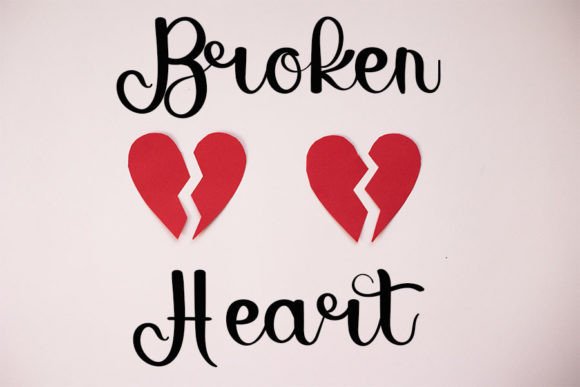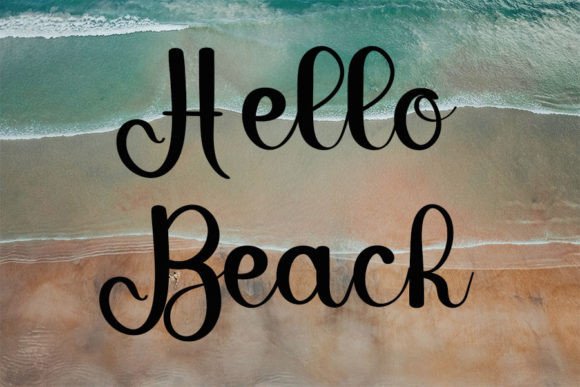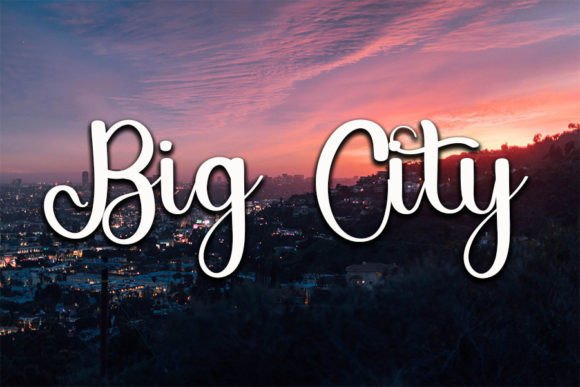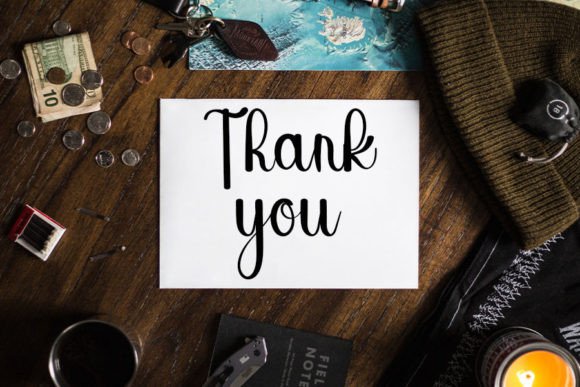
Introducing Century Font: The Perfect Blend of Elegance and Quirkiness
Are you tired of using the same old fonts for your design projects? Look no further! Century Font is a vibrant and elegant handwritten font that is sure to add a touch of sophistication to your logos, branding, social media, and DIY projects. In this article, we’ll dive into the world of Century Font and explore its features, benefits, and uses.
What is Century Font?
Century Font is a carefully crafted handwritten font that exudes elegance and playfulness. Its clean lines and quirky charm make it an ideal choice for designers and crafters looking to add a personal touch to their work. Whether you’re creating a logo, social media graphics, or a crafty DIY project, Century Font is the perfect fit.
Key Features of Century Font
- Handwritten with love: Century Font is a handwritten font that is carefully crafted with attention to detail, giving it a personal and unique touch.
- Clean and elegant: The font features clean lines and a elegant design, making it perfect for logos, branding, and other design projects.
- Quirky and playful: Century Font has a touch of quirkiness that sets it apart from other fonts, making it ideal for crafty DIY projects and social media graphics.
- Versatile: This font is suitable for a wide range of design projects, from logos and branding to social media graphics and crafty DIY projects.
Benefits of Using Century Font
So, why choose Century Font for your design projects? Here are just a few benefits of using this amazing font:
- Adds a personal touch: Century Font’s handwritten design gives your work a personal and unique touch that sets it apart from others.
- Enhances brand identity: The font’s elegance and sophistication make it perfect for logos and branding, helping to create a strong and memorable brand identity.
- Increases engagement: The quirky and playful design of Century Font is sure to grab attention and increase engagement on social media.
Uses of Century Font
Century Font is a versatile font that can be used for a wide range of design projects, including:
- Logos and branding: The font’s elegance and sophistication make it perfect for logos and branding, helping to create a strong and memorable brand identity.
- Social media graphics: The quirky and playful design of Century Font is sure to grab attention and increase engagement on social media.
- Crafty DIY projects: This font is ideal for crafty DIY projects, such as handmade cards, gift tags, and other paper crafts.
- Stationery and invitations: Century Font can be used to create beautiful stationery and invitations that are sure to impress.
Tips for Using Century Font
Here are a few tips for getting the most out of Century Font:
- Experiment with colors: The font’s clean design makes it perfect for use with a wide range of colors and color combinations.
- Mix and match: Try pairing Century Font with other fonts to create a unique and interesting design.
- Play with sizes: The font’s versatility makes it suitable for use at a wide range of sizes, from small captions to large headings.
In conclusion, Century Font is a vibrant and elegant handwritten font that is perfect for designers and crafters looking to add a touch of sophistication to their work. Its clean lines, quirky charm, and versatility make it an ideal choice for a wide range of design projects, from logos and branding to social media graphics and crafty DIY projects. So why wait? Give Century Font a try today and see the difference it can make!